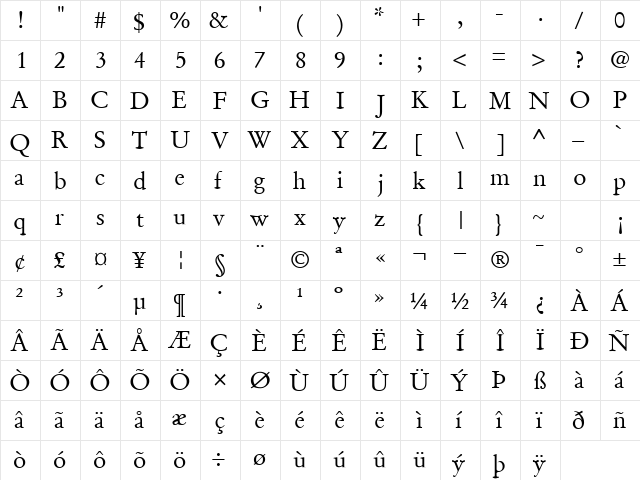
DeutchGaramondSSK Regular Font Preview
DeutchGaramondSSK Regular
Design Context for DeutchGaramondSSK Typeface
DeutchGaramondSSK offers clean, dependable letterforms without strong stylistic allegiance, making it a practical choice for designers who need flexibility.